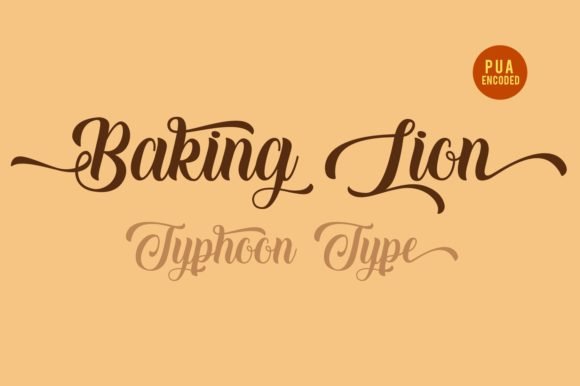
The Sweetest Typography: Unveiling the Baking Lion Font
Have you ever stared at a blank canvas, trying to bring an idea to life, only to be struck by a burst of creativity? For designers, those moments are pure magic. And for those who have been searching for the perfect font to elevate their designs, the Baking Lion Font is a game-changer.
This elegant typeface is more than just a pretty face – it’s a versatile tool that can be used in a variety of applications, from logos and name tags to advertising, product packaging, and even social media and greeting cards. The Baking Lion Font is a valuable asset for designers looking to add a touch of sophistication and whimsy to their work.
Whether you’re a seasoned pro or a design newbie, the Baking Lion Font is sure to inspire your creativity and take your designs to the next level.
Baking Lion Font Key Features
- Unique Characteristics: Hand-drawn design, playful and whimsical feel, ideal for baking and food-related branding, packaging, and advertising
Baking Lion Font Review
I recently had the chance to work with the Baking Lion Font, and I must say it’s an interesting choice for designers looking for a unique font. ✨ The font’s quirky, hand-drawn feel is reminiscent of traditional baking and cooking illustrations, which makes it a great fit for recipes, food blogs, and baking-related projects.
- ✨ Unique, hand-drawn design that adds a personal touch to any project
- ✨ Great for baking and cooking-related projects, as well as other creative fields
- ✨ Easy to read, even at small font sizes
- ⚠️ May not be suitable for formal or professional projects, as its playful design may come across as unprofessional
- ⚠️ Limited font sizes and styles, which may limit its versatility in certain projects
- ⚠️ May require some additional styling to make it work well in certain contexts
Overall, the Baking Lion Font is a great choice for designers looking for a unique, creative font to add some personality to their projects. While it may have some limitations, its quirky design and ease of use make it a solid option for the right project.
The Baking Lion font is ideal for baking-related businesses, food blogs, and creative projects.
Alternatives to Baking Lion Font for Designers
Great Vibes Font is a modern, elegant, and highly legible sans-serif font. It is ideal for use in logo designs, headings, and body text where a clean and sophisticated look is desired.
Compared to Baking Lion Font, Great Vibes Font is more versatile and has a wider range of applications. While Baking Lion Font has a unique, handwritten feel, Great Vibes Font is more neutral and can be used in a variety of design contexts.
Lato Font is a sans-serif font that is highly readable and suitable for use in body text, headings, and titles. It is a great choice for designs that require a clean and modern look.
Lato Font is more geometric and structured compared to Baking Lion Font, which has a more organic feel. Lato Font is also more versatile and can be used in a wider range of design contexts.
Montserrat Font is a geometric sans-serif font that is highly legible and suitable for use in body text, headings, and titles. It is a great choice for designs that require a modern and urban feel.
Montserrat Font is more structured and geometric compared to Baking Lion Font, which has a more handwritten feel. Montserrat Font is also more versatile and can be used in a wider range of design contexts.
Playfair Display Font is a luxurious and elegant serif font that is ideal for use in headings, titles, and body text where a sophisticated and high-end look is desired.